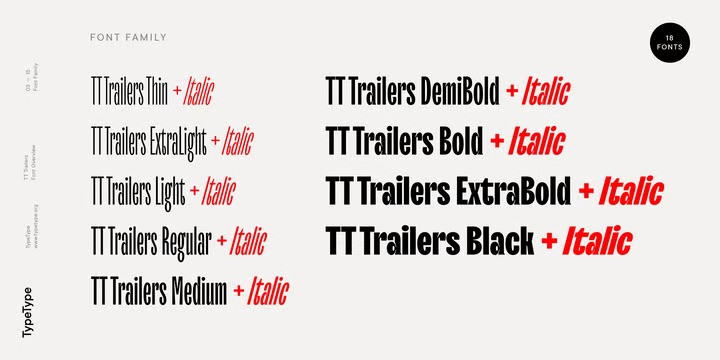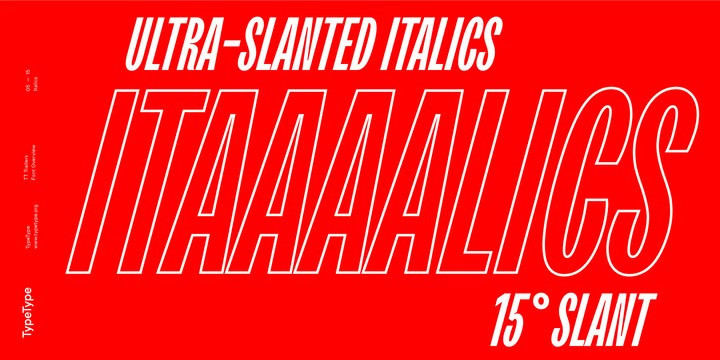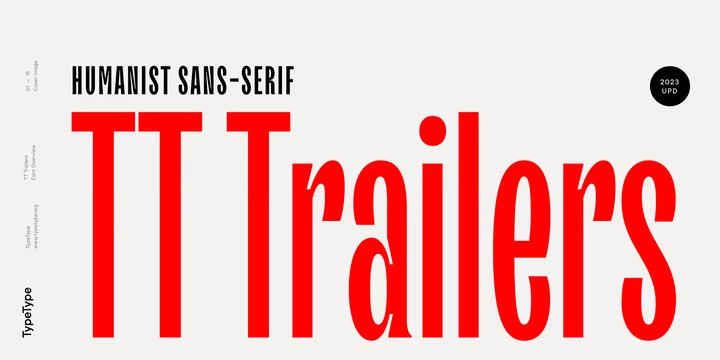
TT Trailers Sans Serif Font Family. The first version of TT Trailers was conceived as a font suitable for the film industry. The font harmoniously looks in posters, it is ideally suited for setting titles. However, the font has gained wide popularity among designers, and now you can find TT Trailers on the covers of magazines, on restaurant signs and on the main pages of websites.
Since 2019 when we released the first version, the TypeType studio team has released dozens of fonts, constantly improving our skills. In 2022, we decided to look at TT Trailers again, improving and expanding the font.
In the new TT Trailers, we expanded the character set, corrected the contours, and improved the technical content. We have added extended Latin and Cyrillic characters, new symbols, and additional sets of numbers. The number of glyphs in one style has increased from 1081 to 1242.
The inclined styles were long-awaited. The italics in TT Trailers are as eccentric as the upright fonts. The 15-degree tilt looks absolutely harmonious, complementing the character of the font family. We added italics to the variable font, so the new font changes along two axes at once, weight and slant.
From the technical point of view, TT Trailers has become more modern and correct, and the number of OpenType features has increased from 29 to 42. We have added new alternative versions of glyphs and created a large number of localized features.
The font retained all the qualities thanks to which designers fell in love with it, but became even more convenient. TT Trailers in the new version is suitable for titles and posters, for websites and printed materials. The font will embellish in restaurant and cafe signs and look beautiful in posters.
There are 19 styles in TT Trailers: 9 upright, 9 italic and 1 variable font.